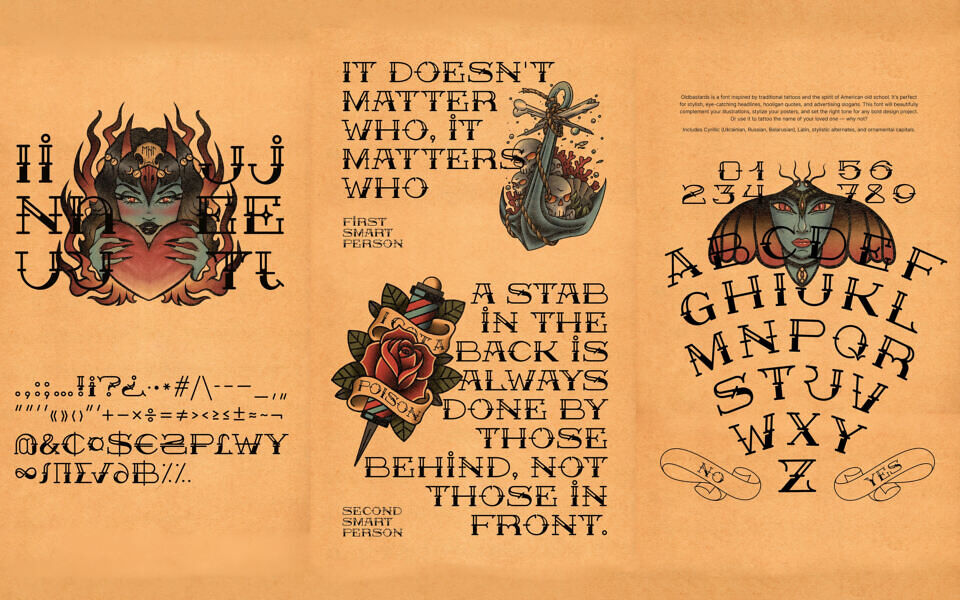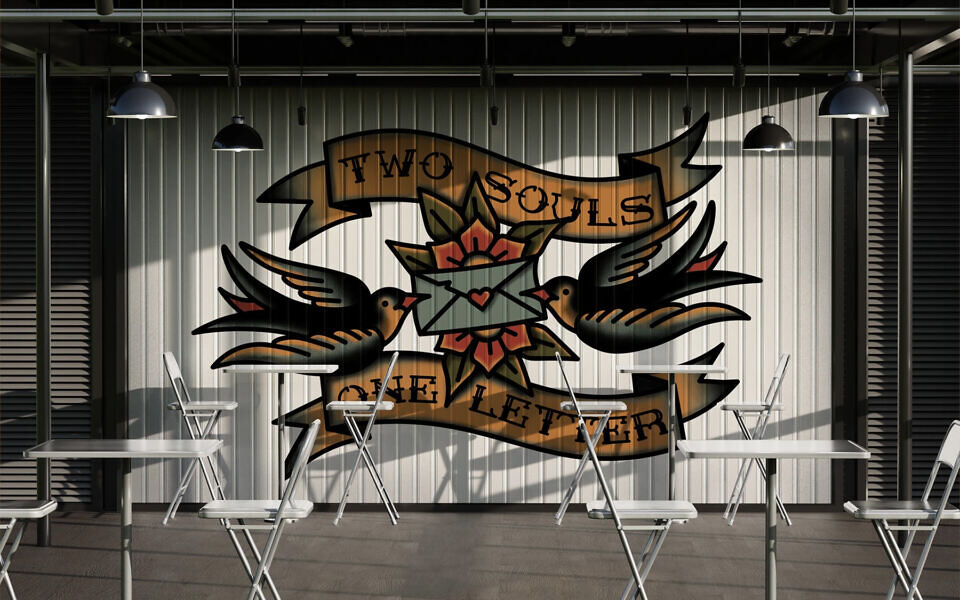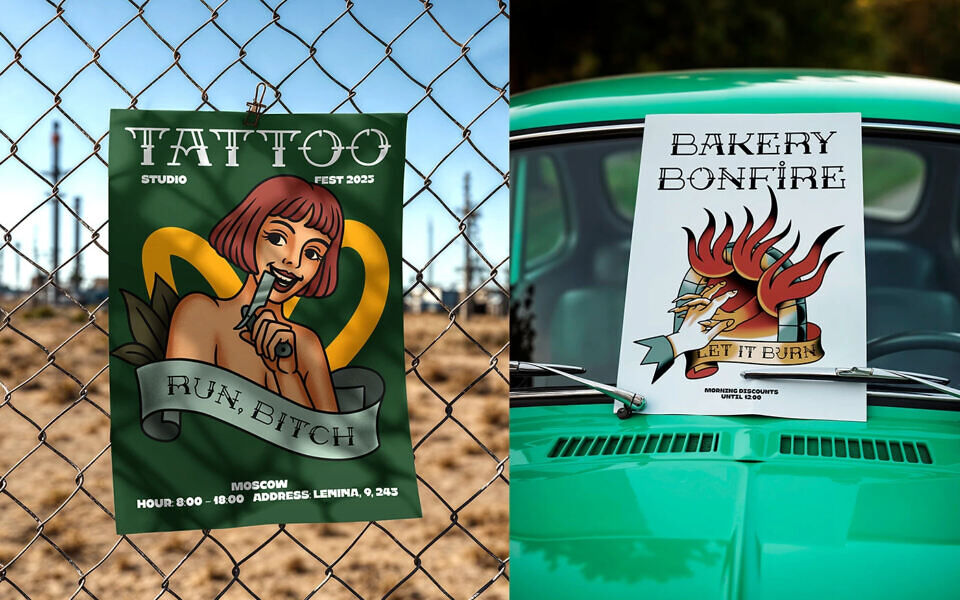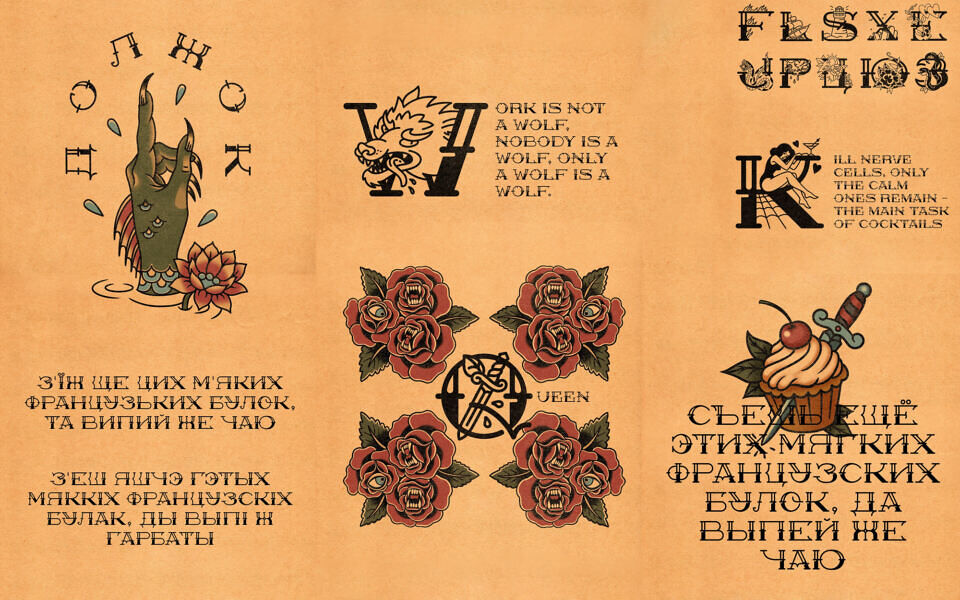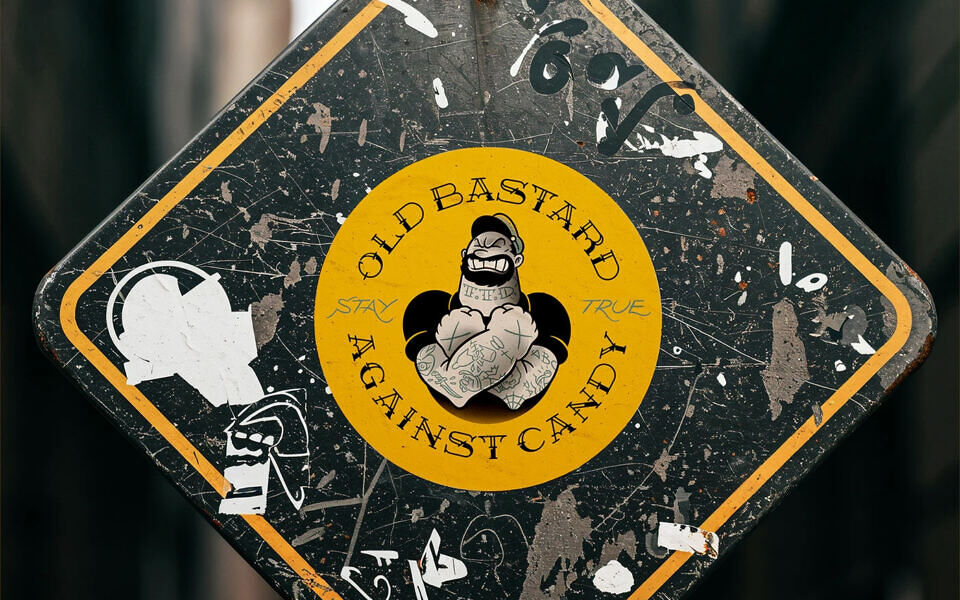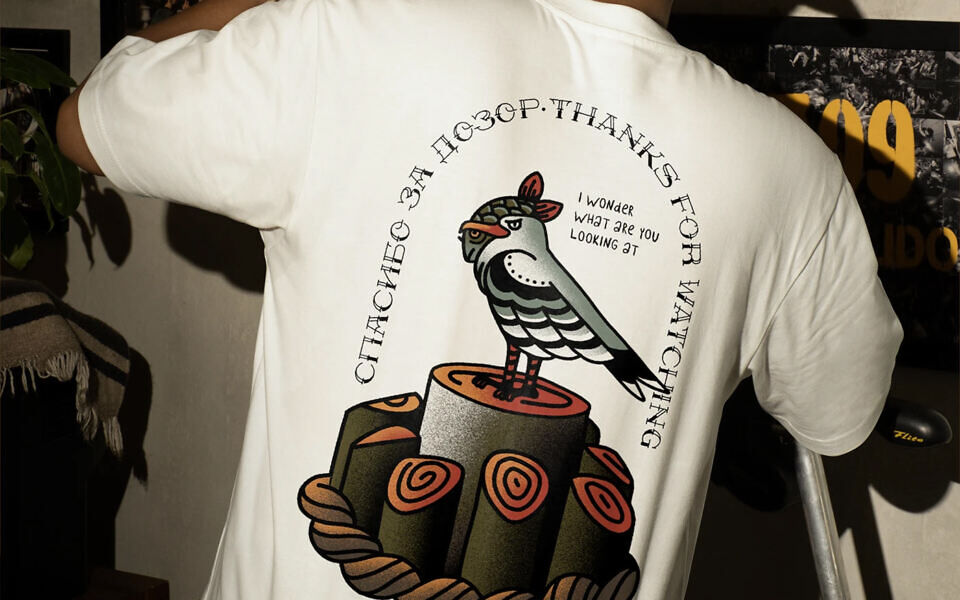
Oldbastards is a font inspired by traditional tattoos and the spirit of American old school. It’s perfect for stylish, eye-catching headlines, hooligan quotes, and advertising slogans.
This font will beautifully complement your illustrations, stylize your posters, and set the right tone for any bold design project. Or use it to tattoo the name of your loved one — why not?
Includes Cyrillic (Ukrainian, Russian, Belarusian), Latin, stylistic alternates, and ornamental capitals.